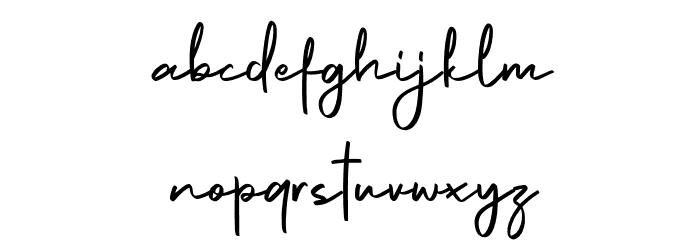
Scott Pilgrim Font
This font features a playful and energetic script style, characterized by its fluid and dynamic strokes. The uppercase letters exhibit a bold and confident presence, with varying stroke widths that add a sense of movement and rhythm. The lowercase letters maintain a cohesive flow, with elegant loops and curves that enhance its handwritten appeal. The overall design is casual yet sophisticated, making it suitable for a variety of creative applications. The numerals and special characters are consistent with the font's lively aesthetic, ensuring versatility across different contexts.
A lively and dynamic script font with fluid strokes and a playful character.
- Font: Scott Pilgrim
- Proposed Projects: Ideal for branding, invitations, greeting cards, and social media graphics.
- Category: Script
- Use Case: Logos, Headlines, Decorative text